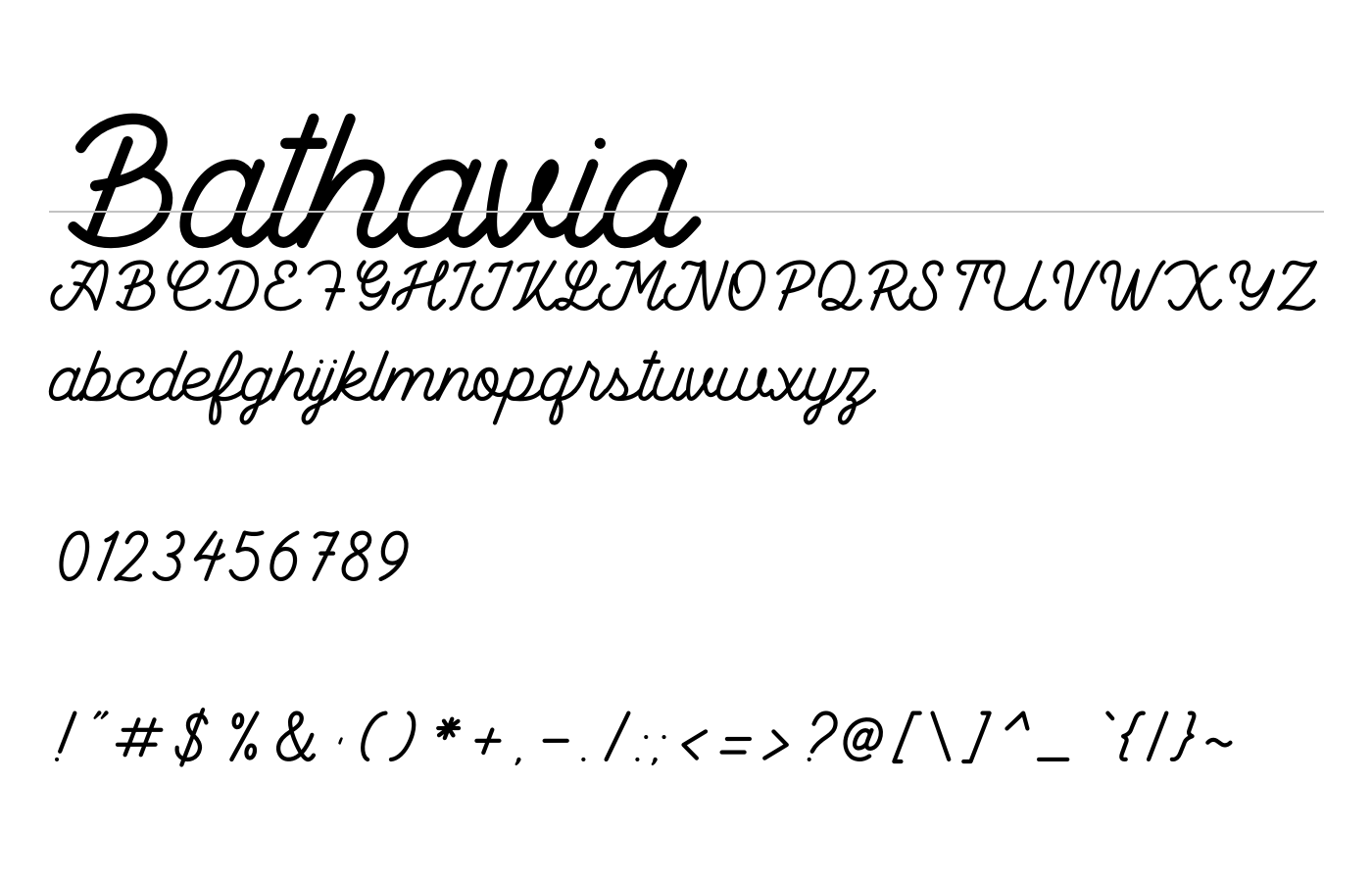
Bathavia is a stylish, smooth script font with a casual yet refined feel, characterized by its slightly slanted, connected letterforms and consistent stroke weight. Its elegant, flowing design makes it ideal for branding, invitations, and creative projects that seek a friendly but polished appearance. This font works well for logos and headlines where a personal, handwritten touch is desired without sacrificing readability.
Bathavia Font
About Bathavia Font
| Font family | Bathavia Font |
| Designer | Typesthetic Studio - Hamzah Muhamad Ihsan - Jakarta (INA) |